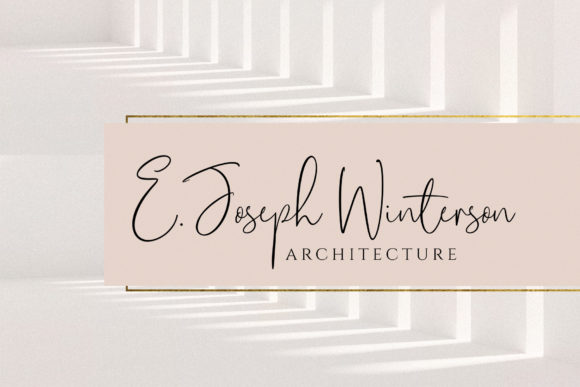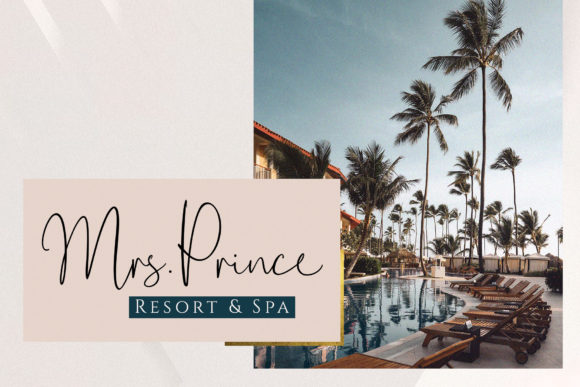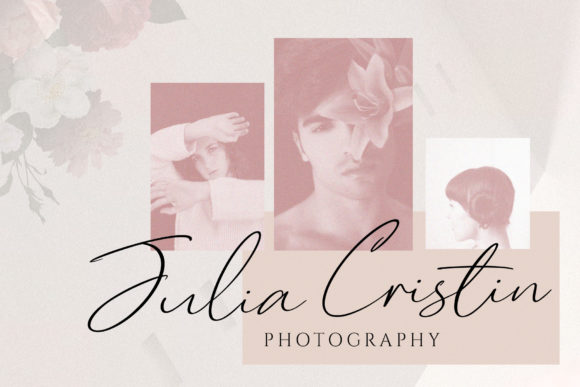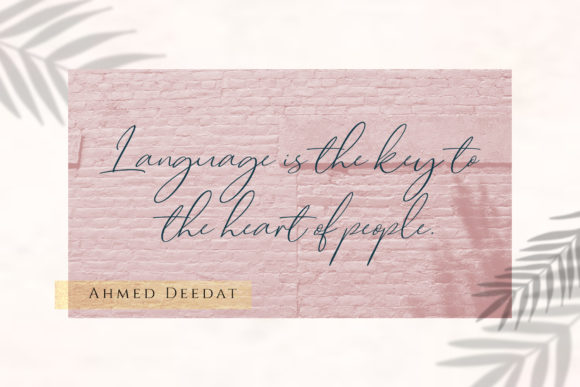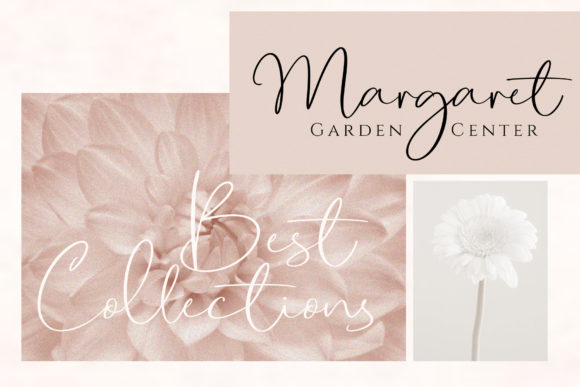
Cartines Font
About Cartines Font
Cartines is a stunning, light and classically elegant handwritten font. It will turn any creative project into a true stand out with its unique charm!